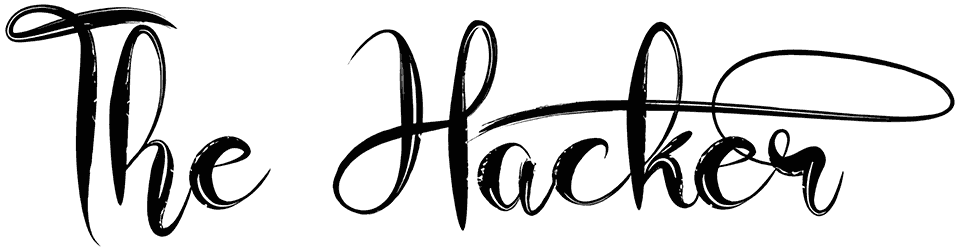
The Hacker Font
Regardless of what your next project is, it’s easy to be on your A-game when you have such an awesome brush font to count on. All your chef website banners, apparel store signs, massage therapy posters, or else, end up more interesting once styled with The Hacker.
You won’t pick this handwritten font just because it’s artistic and tasteful. It’s more about the seductive curves and its sexy style as a dreamy swash font that always delivers hot text designs.